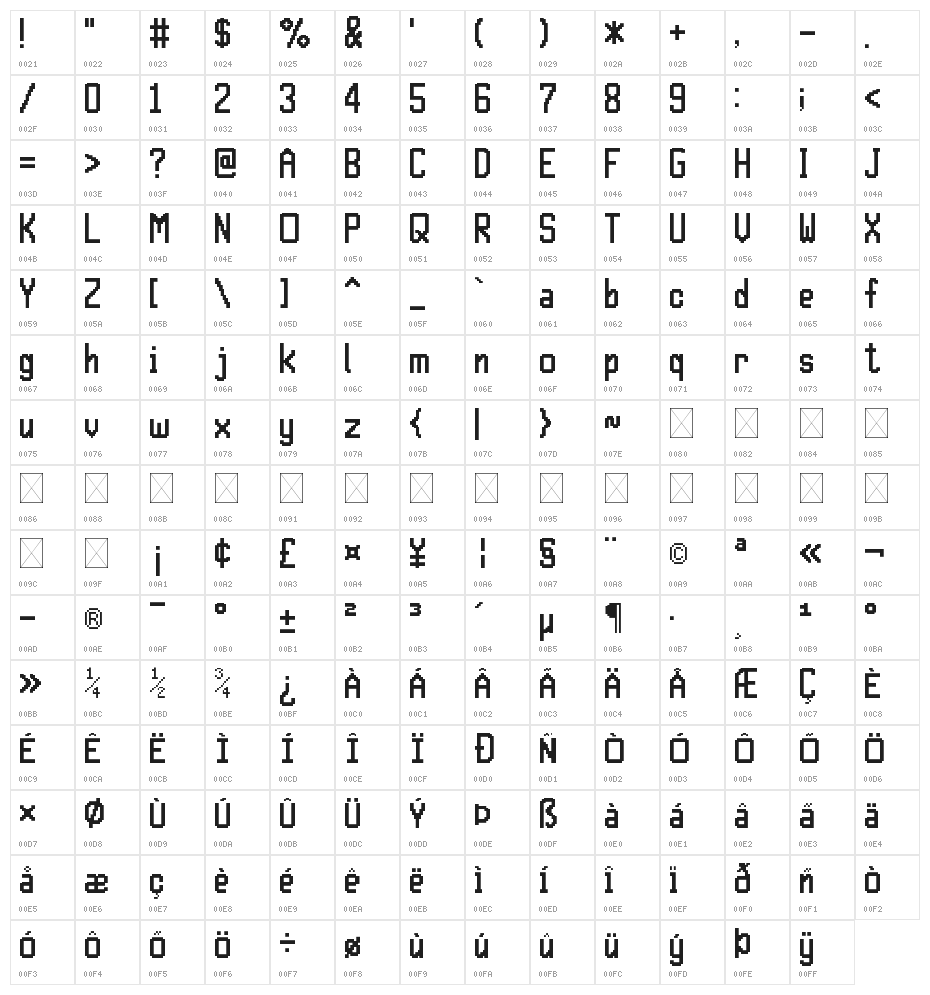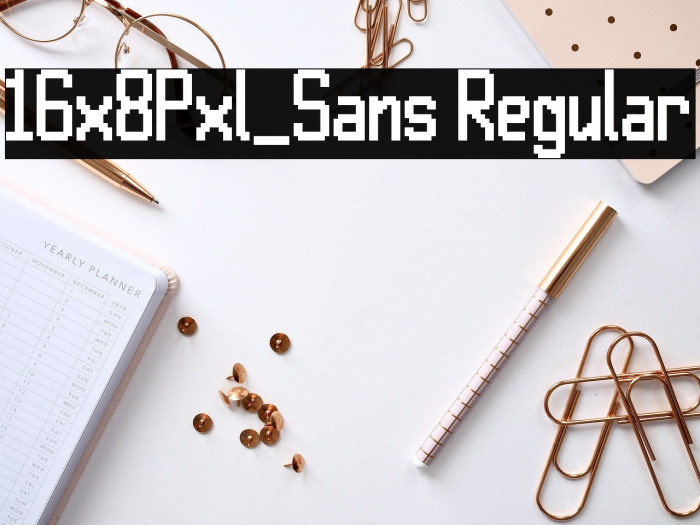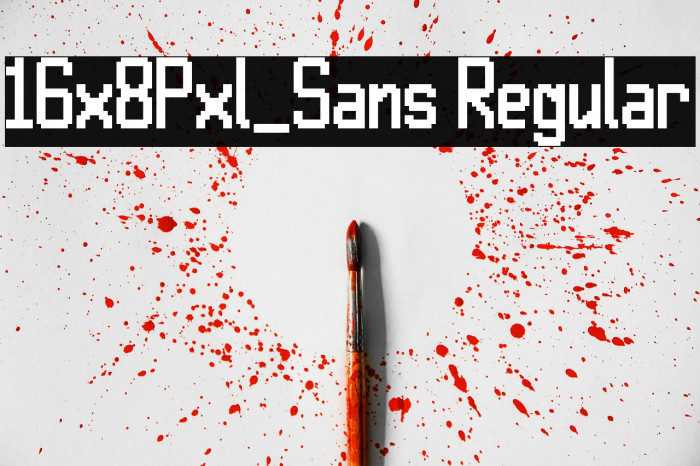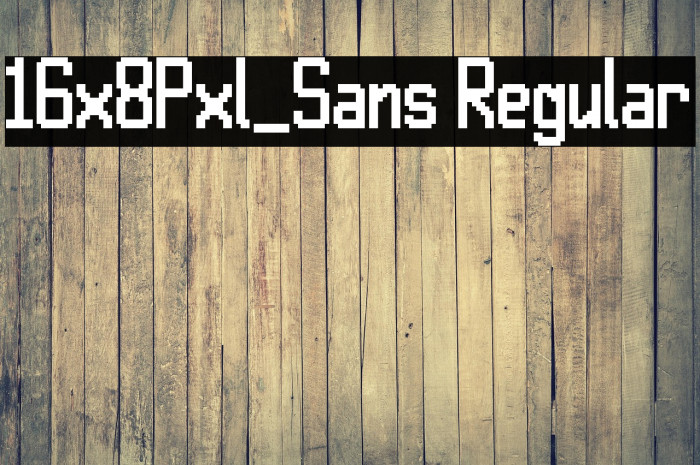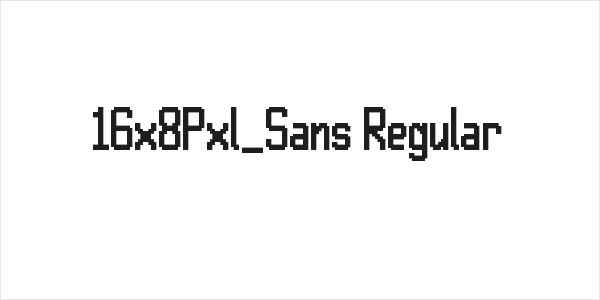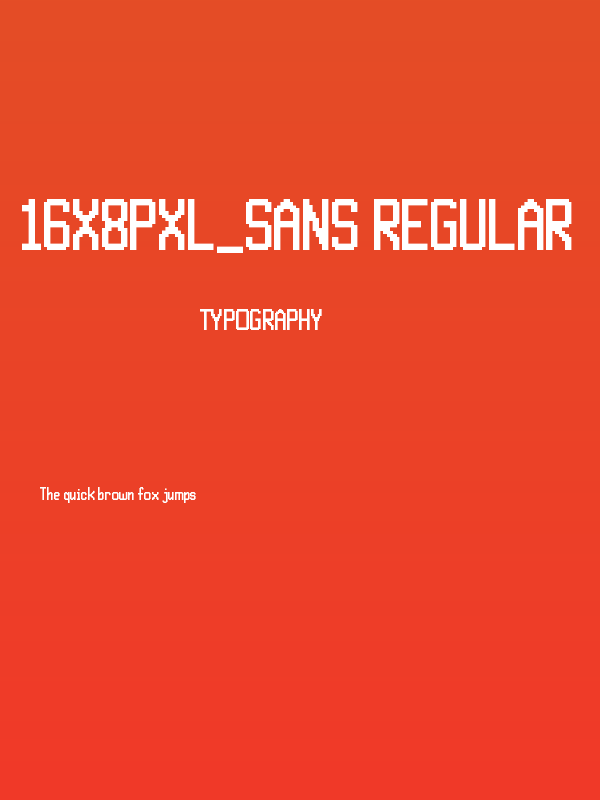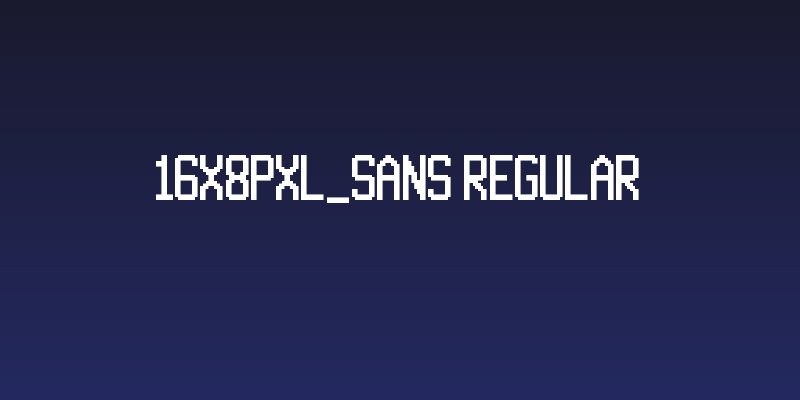
16x8Pxl_Sans Regular Font
| Caso d'uso | Logos, Digital displays, Retro-themed projects |
| Progetti proposti | Ideal for retro video game designs, digital art projects, and any creative work that seeks to evoke a nostalgic digital feel. |